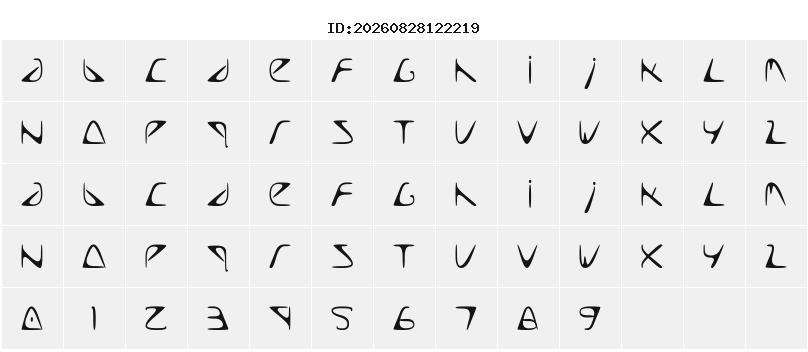
Too Late Preview
• Font Name: Too Late
• Font Style: Too Late
• Full Font Name: Too Late
• PostScript Name: Too Late
• Character Count: 173
About Too Late.ttf
Too Late.ttf is a modern, elegant sans-serif font designed for ultimate readability and visual harmony. Perfect for branding, headlines, web design, and print materials.